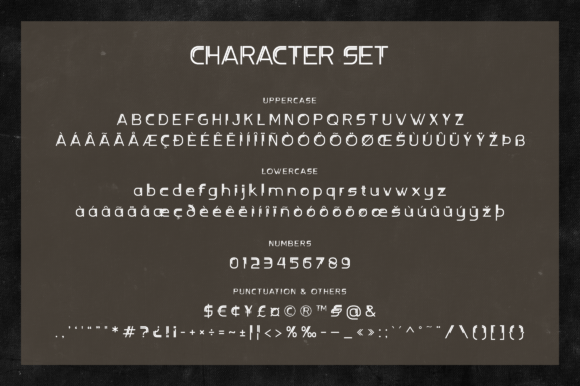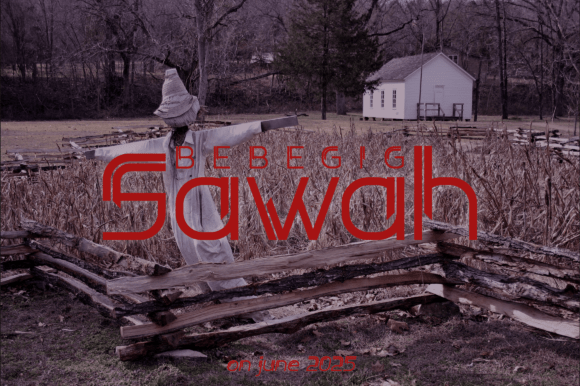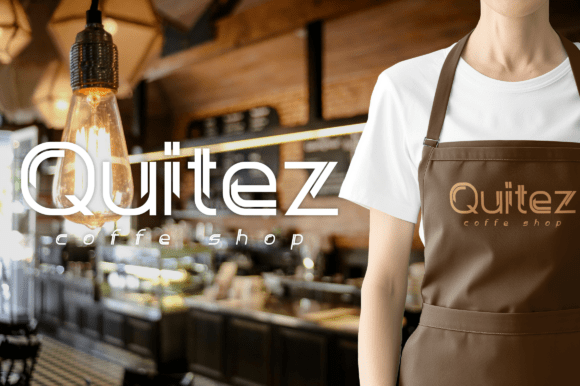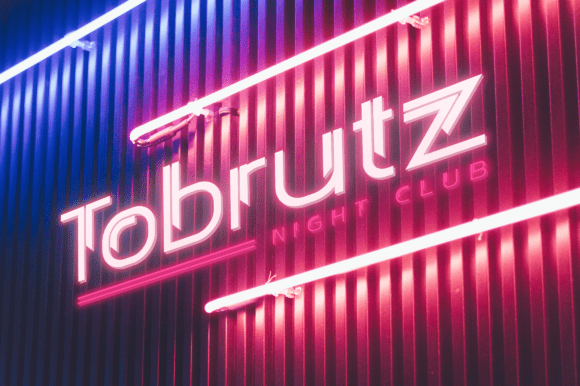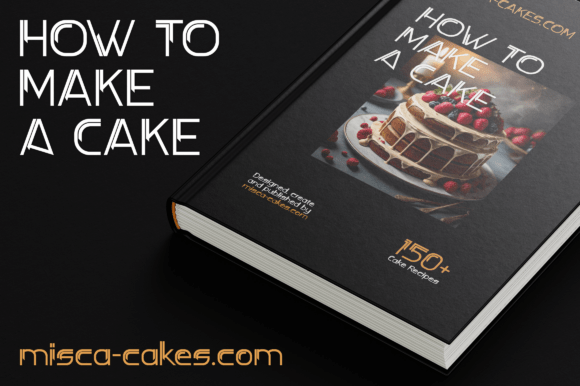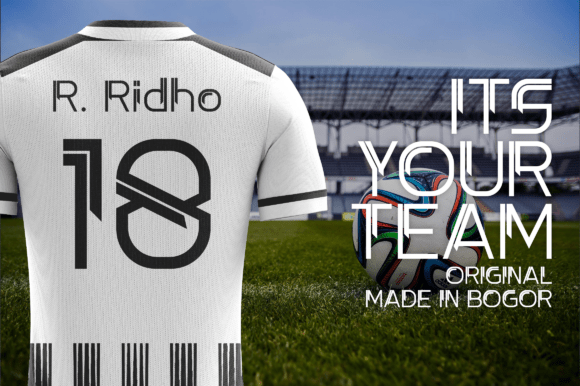
Introduction to Ixia Font
IXIA is a bold and futuristic display font with a striking, geometric structure that channels a high-tech and industrial edge.
With sharp angular lines, carved textures, and a stone-cut aesthetic, this font evokes strength and mystery, perfect for sci-fi themes, tech branding, video games, and cinematic titles Its uniqueness lies in its blend of ancient symbolism and modern minimalism.
Key Features of Ixia Font